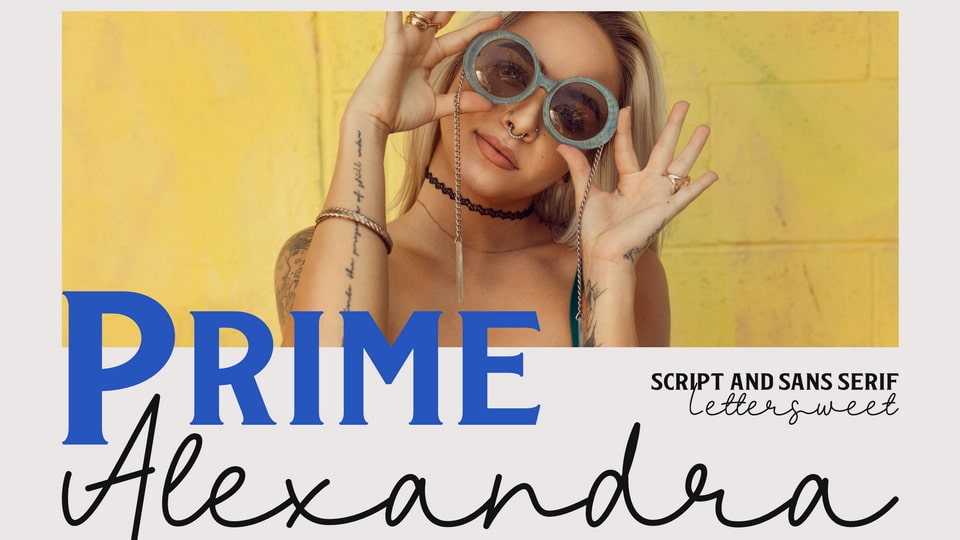
Download Prime Alexandra font, a stylish and delicate typeface suitable for a wide spectrum of applications. From greeting cards to headlines, this font will guarantee a romantic touch to each of your creations!